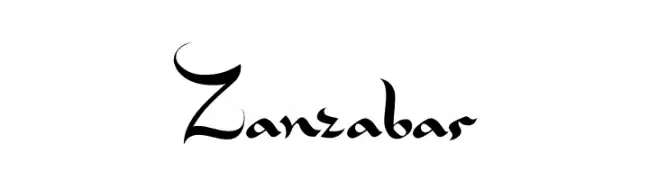
A decorative, calligraphic font with elegant swirls and artistic flair.
An elegant, flowing script font with calligraphic style and dynamic strokes.
A dynamic script font with fluid, sweeping strokes and calligraphic elegance.
A bold, calligraphic font with sharp, angular strokes and a gothic influence.
A bold, expressive script font with calligraphic influences and dramatic flourishes.
An artistic, calligraphic font with elegant curves and sharp edges.
A decorative font with elegant swashes and calligraphic flair.
An elegant, flowing script font with a calligraphic influence.
A calligraphic and gothic-inspired font with sharp, angular strokes and elegant curves.
An elegant script font with fluid, graceful strokes and calligraphic flair.